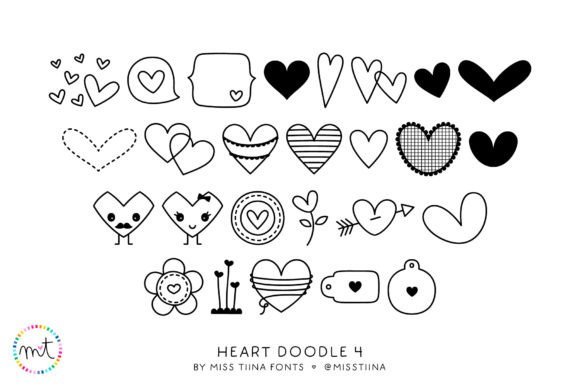
Expressing Love with Heart Doodle 4 Font
As you sit down to design a heartfelt Valentine’s Day card for your loved one, you can’t help but feel a rush of creativity. The pressure is on to convey your emotions through the perfect combination of words and visuals. This is where the Heart Doodle 4 Font comes in – a beautiful and versatile dingbat font that’s tailor-made for romantic occasions.
Perfect for weddings, anniversaries, or any other celebration of love, Heart Doodle 4 Font is your ultimate resource for creating endearing and love-infused designs. With its tender and stylish heart symbols, you’ll be able to express your feelings in a way that’s both unique and memorable. Whether you’re a seasoned designer or a DIY enthusiast, Heart Doodle 4 Font is sure to become your go-to choice for all your romantic design needs.
Heart Doodle 4 Font Key Features
- Font style: A unique, hand-drawn, and playful font with a heart theme, ideal for creative projects and designs.
- Size: The font comes in a single weight, making it easy to use in a variety of design contexts without worrying about multiple font weights.
- Resolution: The font is designed to be scalable and resolution-independent, ensuring it looks great on various devices and screen sizes.
- Character set: The font includes a wide range of characters, including uppercase and lowercase letters, numbers, and punctuation marks, making it suitable for everyday use.
- Unique characteristics: The font’s hand-drawn style and heart theme make it a great choice for designs that require a touch of personality and whimsy.
Heart Doodle 4 Font Review
As a designer, I was excited to try out the Heart Doodle 4 Font. Here’s my honest review.
✨ The unique hand-drawn design of the font is charming and adds a personal touch to any project. It’s perfect for creating whimsical and playful content.
✨ The font is highly customizable, allowing designers to adjust the thickness, spacing, and style to suit their needs.
✨ The font is available in multiple weights, making it versatile for use in headings, body text, and other design elements.
⚠️ The font may not be suitable for use in professional or formal settings, as its playful nature may come across as immature.
⚠️ The font may require additional styling to make it legible in smaller sizes or at higher resolutions.
⚠️ The font’s uniqueness can also be a double-edged sword, making it difficult to pair with other fonts or design elements.
The Heart Doodle 4 Font is a fun and creative option for designers looking to add some personality to their projects. While it may not be suitable for every occasion, it’s a great choice for projects that require a playful or whimsical tone.
Use the Heart Doodle 4 Font for:
Valentine’s Day designs, wedding invitations, and romantic greeting cards.
Create custom doodle patterns for kids’ birthday cards and party decorations.
Experiment with different heart doodle patterns to add a touch of whimsy to your designs.